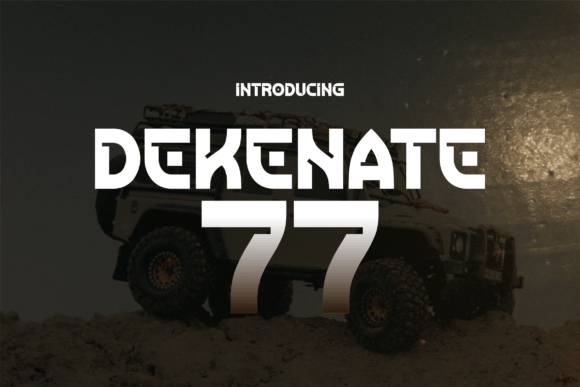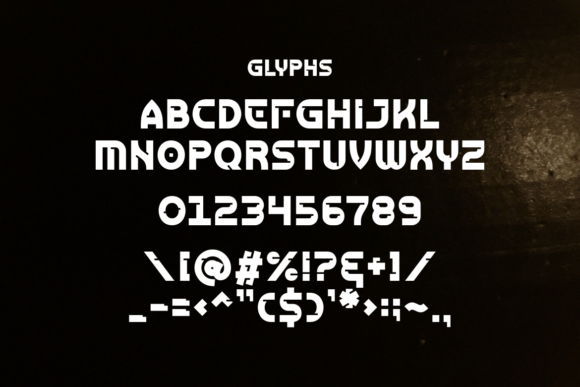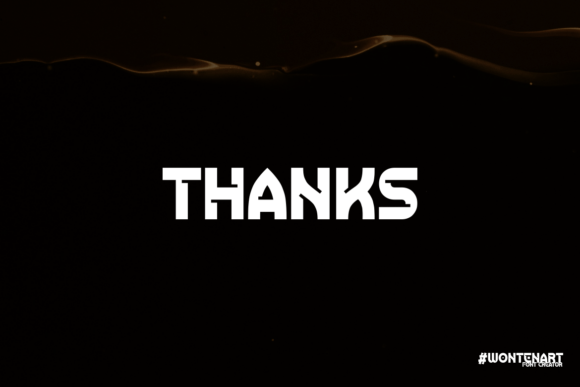
Dekenate 77 Font: Bold Display Sans Serif for Retro Logo Design
About the Dekenate 77 Font
Unleash your creativity with Dekenate 77 Font, a versatile font perfect for a wide range of applications. Introducing Dekenate 77, a audaciously bold, sans-serif display font fused with a lively retro-modern aesthetic. Gaining inspiration from the charm of vintage style and the boldness of urban design, it’s crafted with robust letterforms, razor-sharp edges, and an assertive structure undeniable to the onlooker. With its unparalleled versatility, Dekenate 77 seamlessly transitions into striking logos, fashionable apparel, and eye-catching posters. Let Dekenate 77 add a commanding presence to your design repertoire.
Dekenate 77 Font Usage Examples
Dekenate 77 Font Example